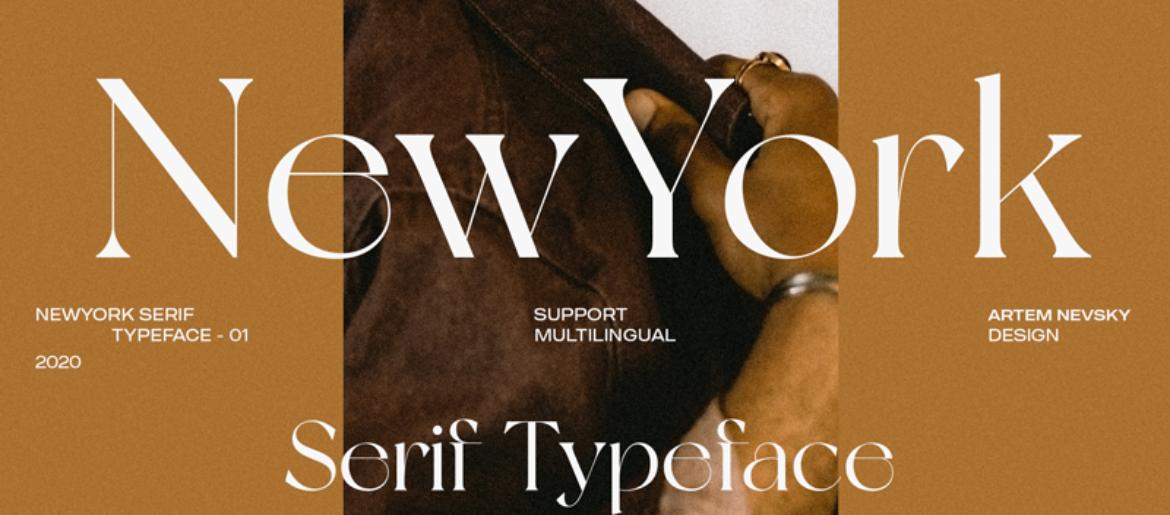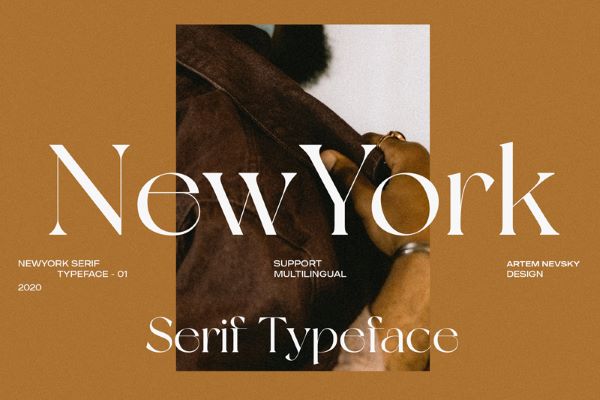
NewYork Font
NewYork Font is a refined serif typeface inspired by classic editorial design and metropolitan elegance. It features sharp serifs, balanced contrast, and timeless proportions, making it ideal for headlines, magazines, branding, books, posters, and layouts that seek sophistication, authority, and a strong connection to traditional yet modern typography.
➤ Font Name: NewYork
➤ Designer: Artem Nevsky
➤ Style: Serif